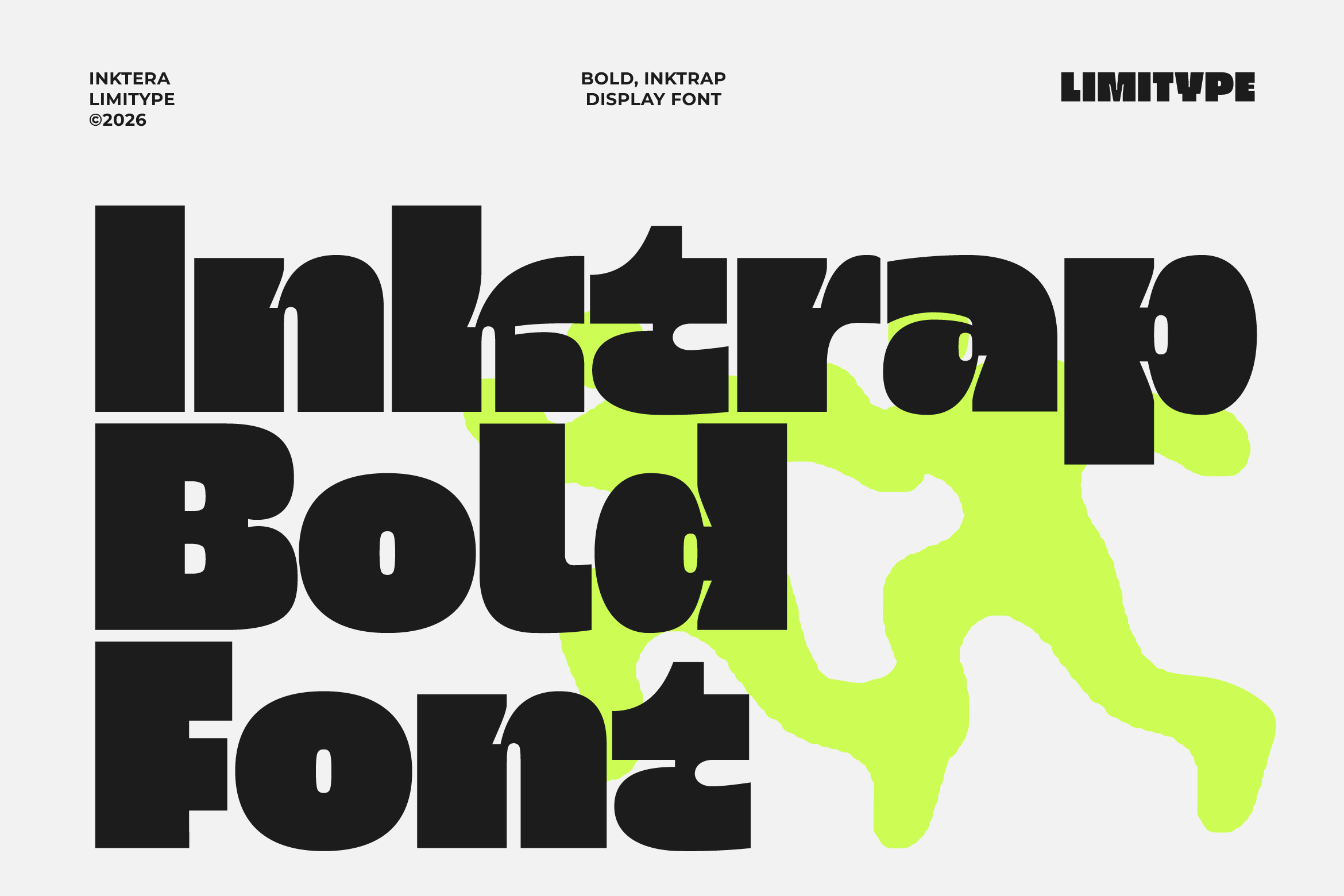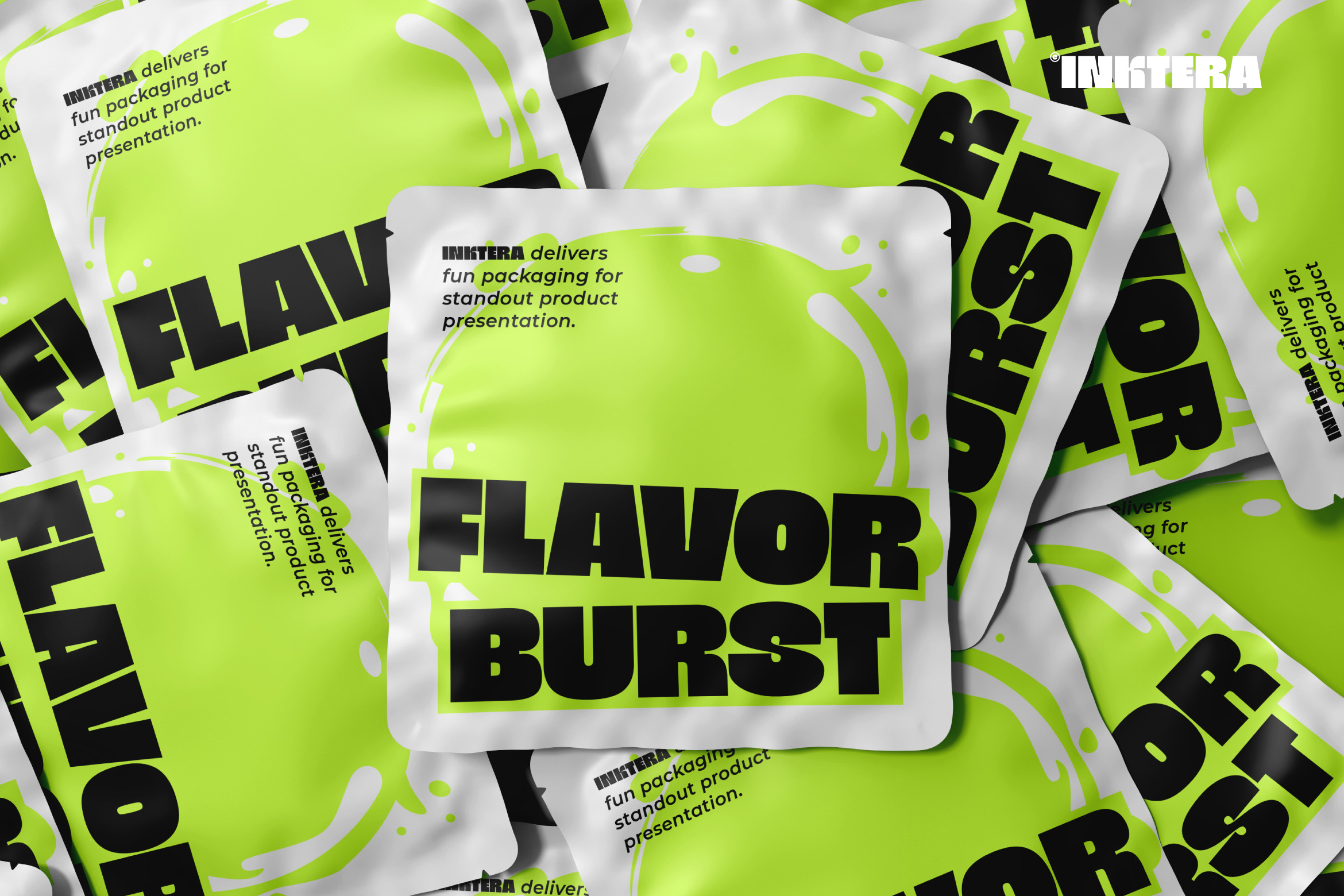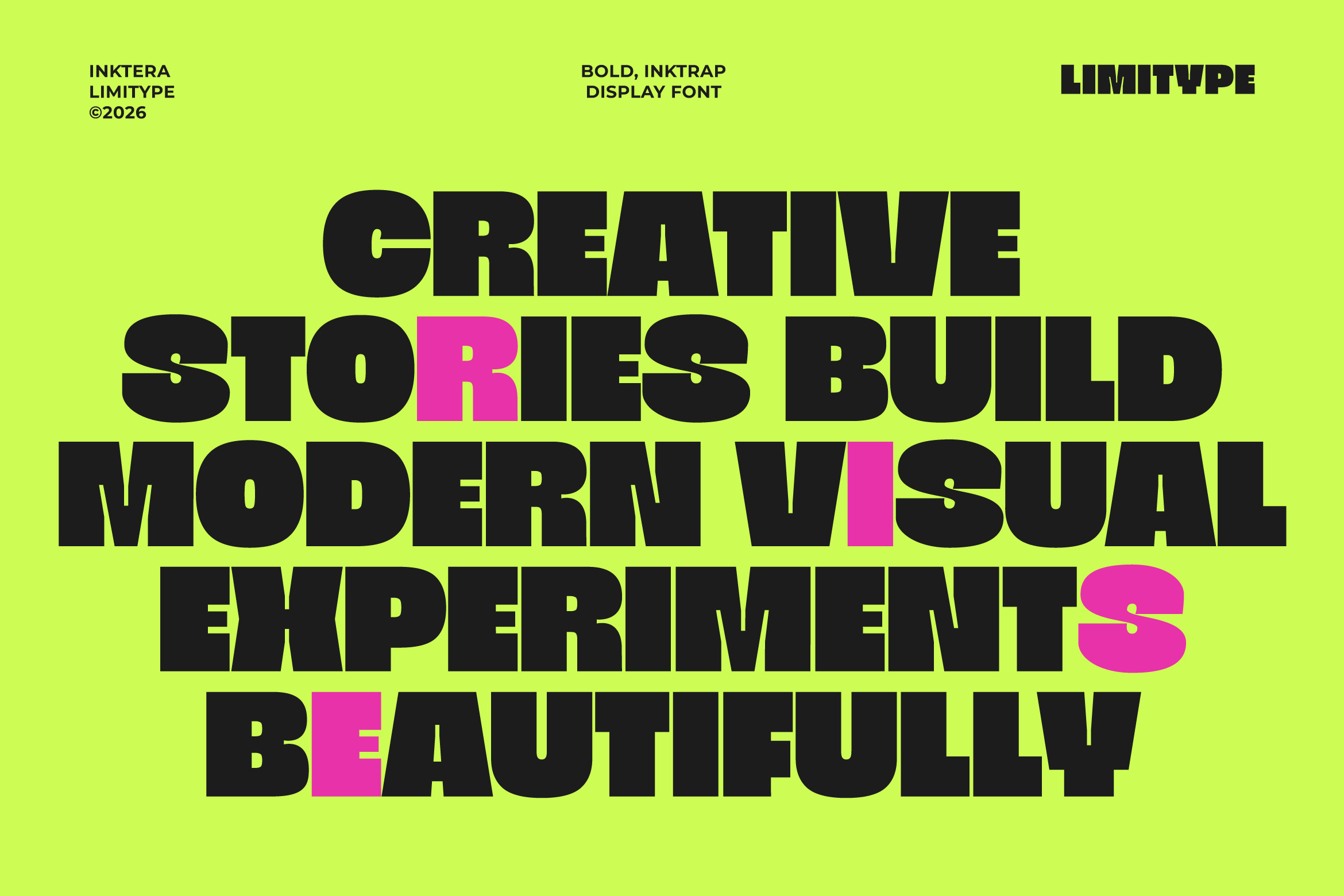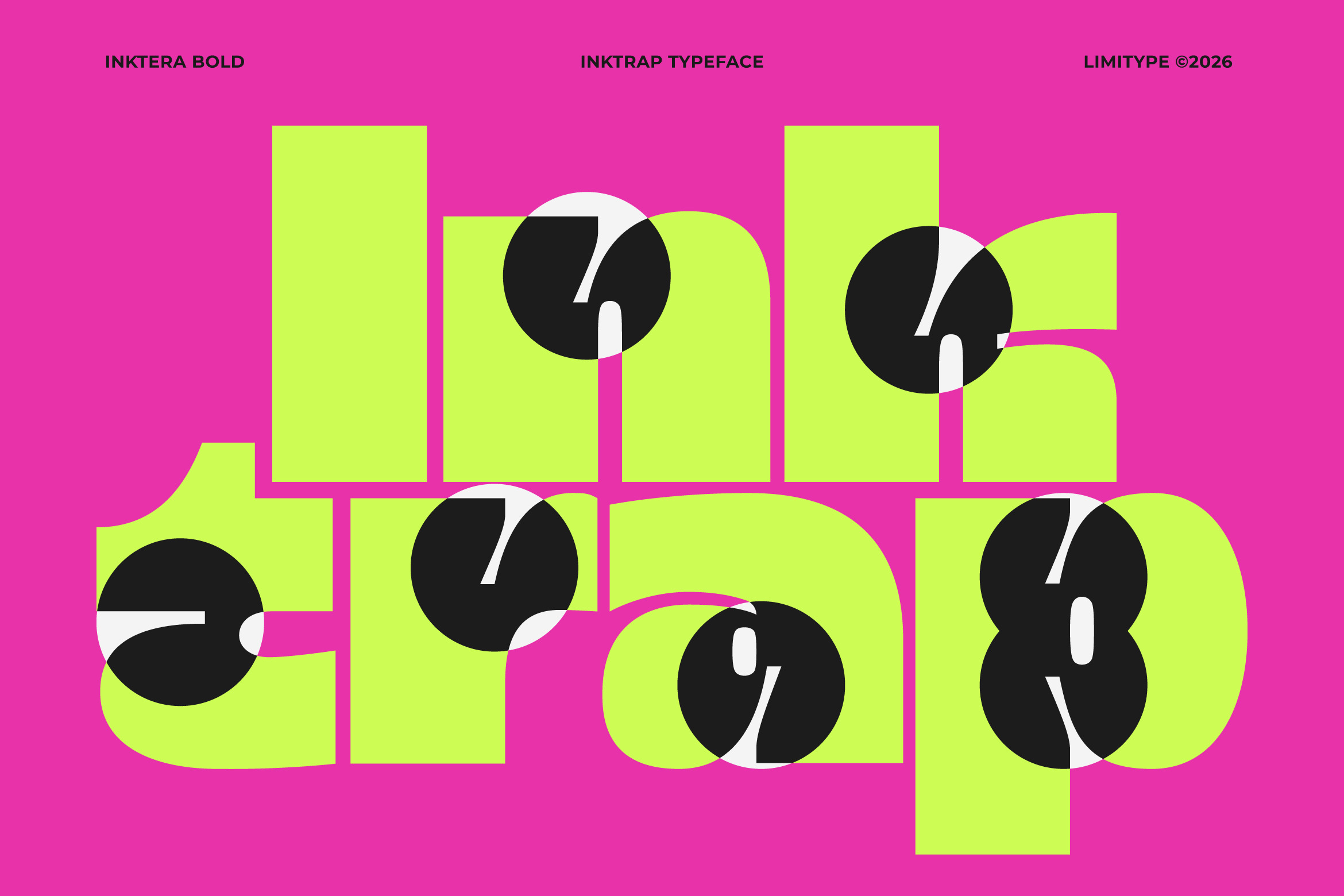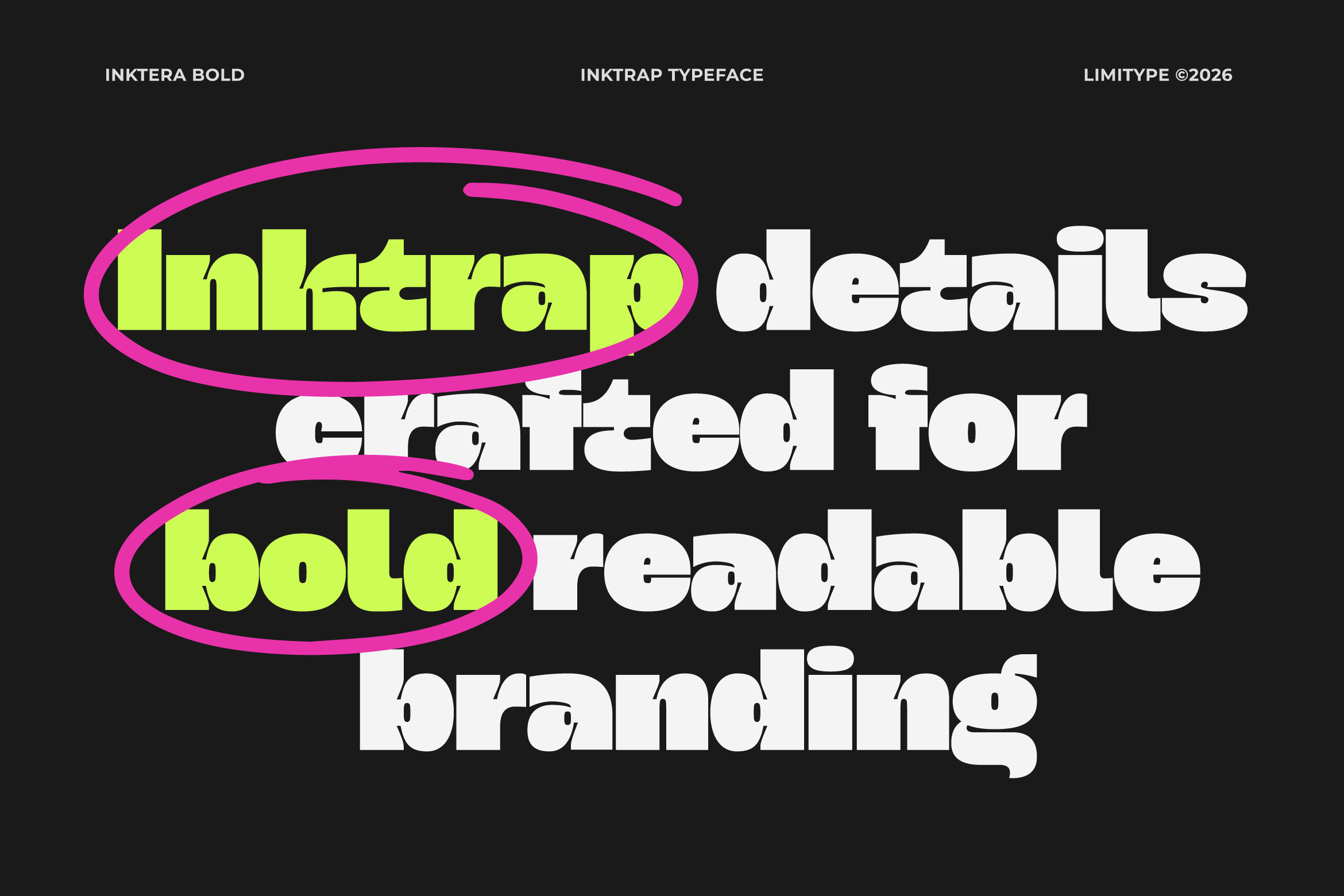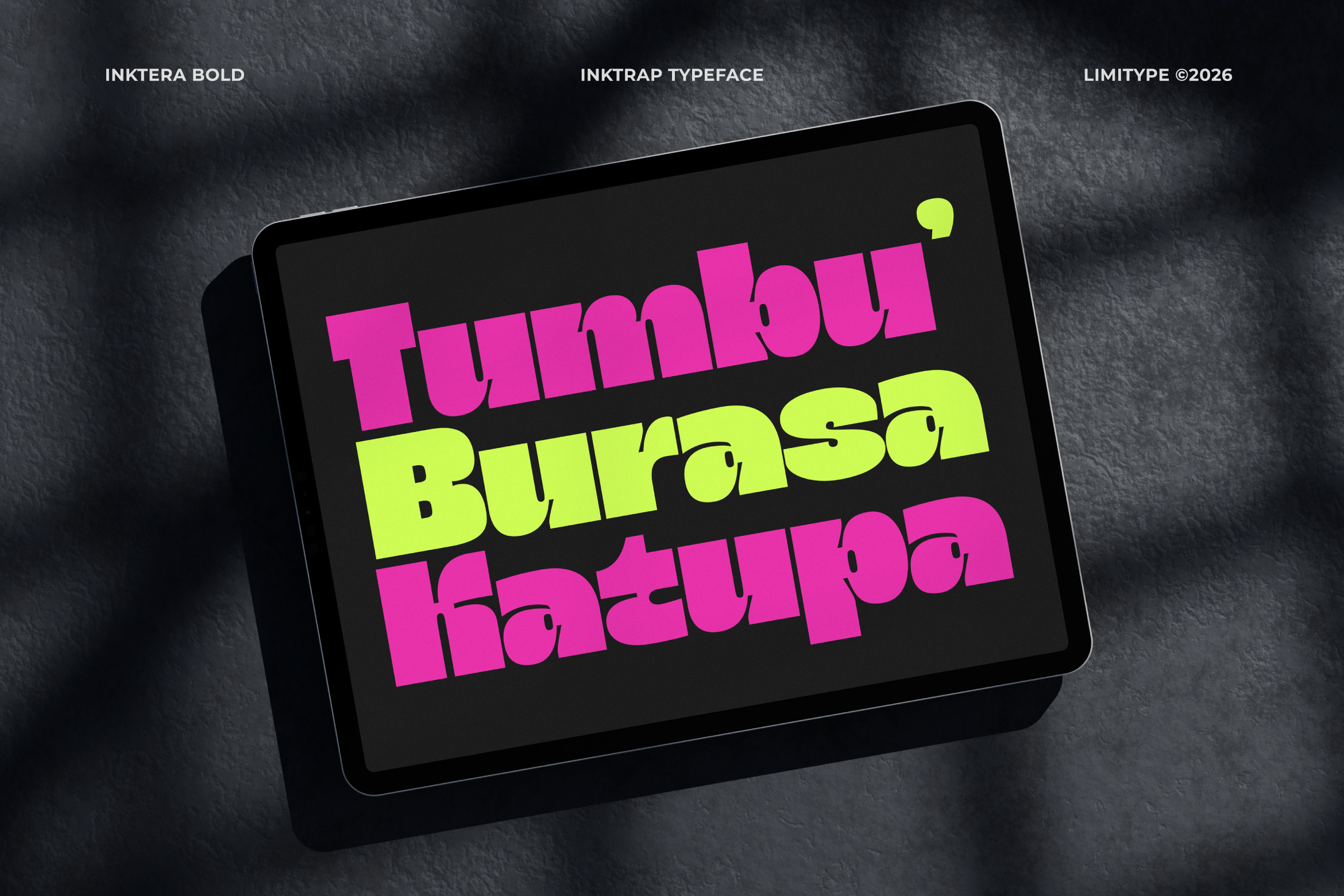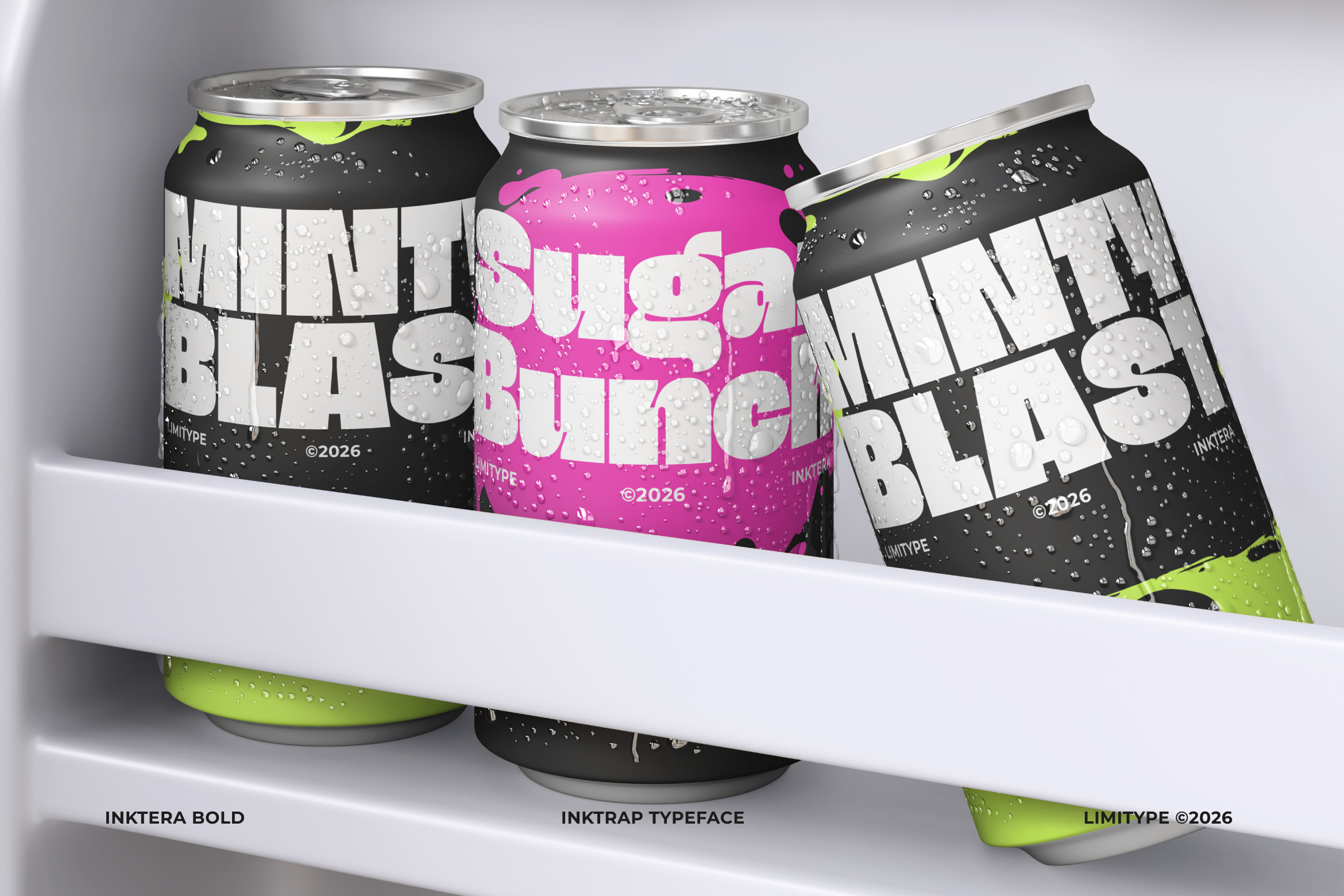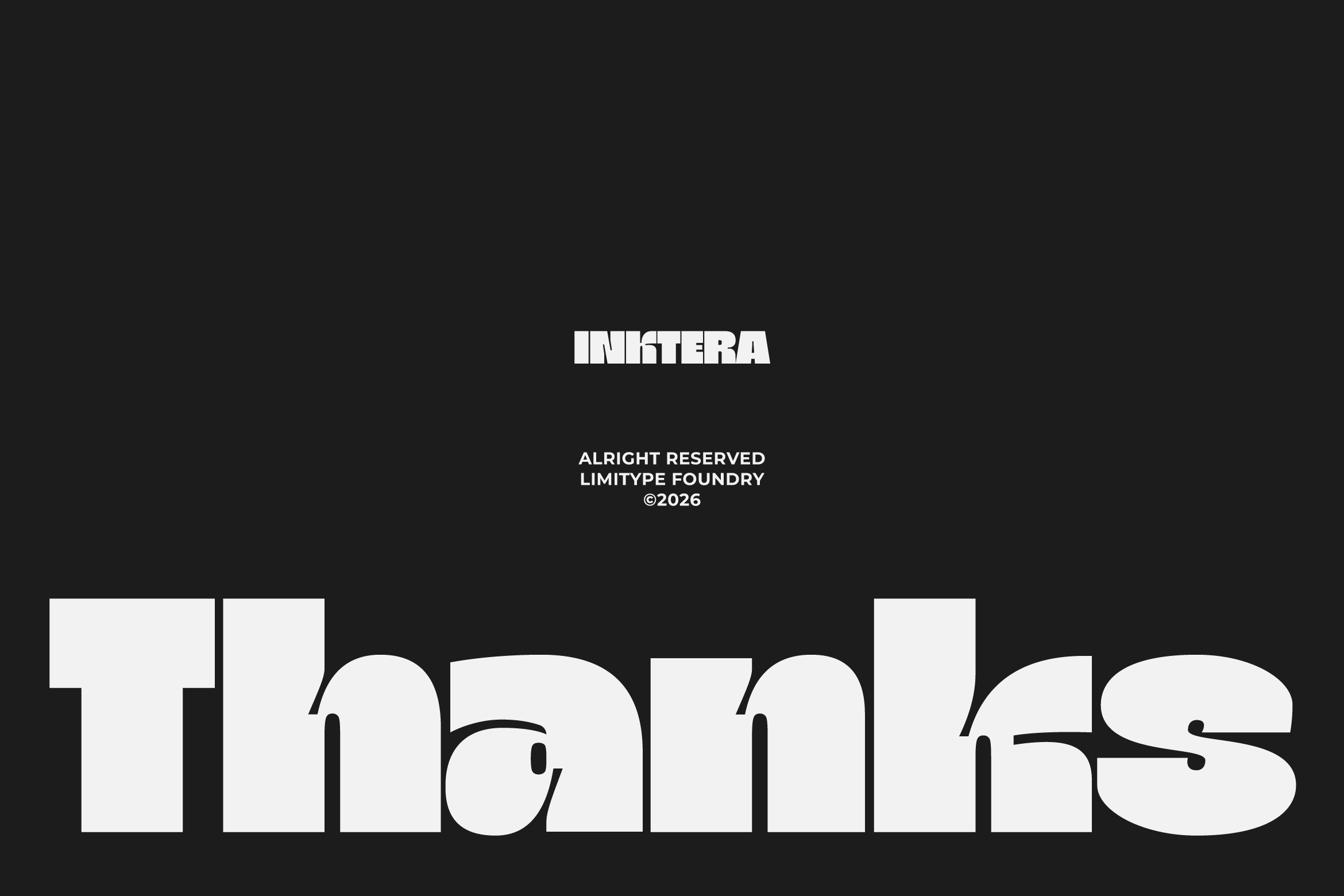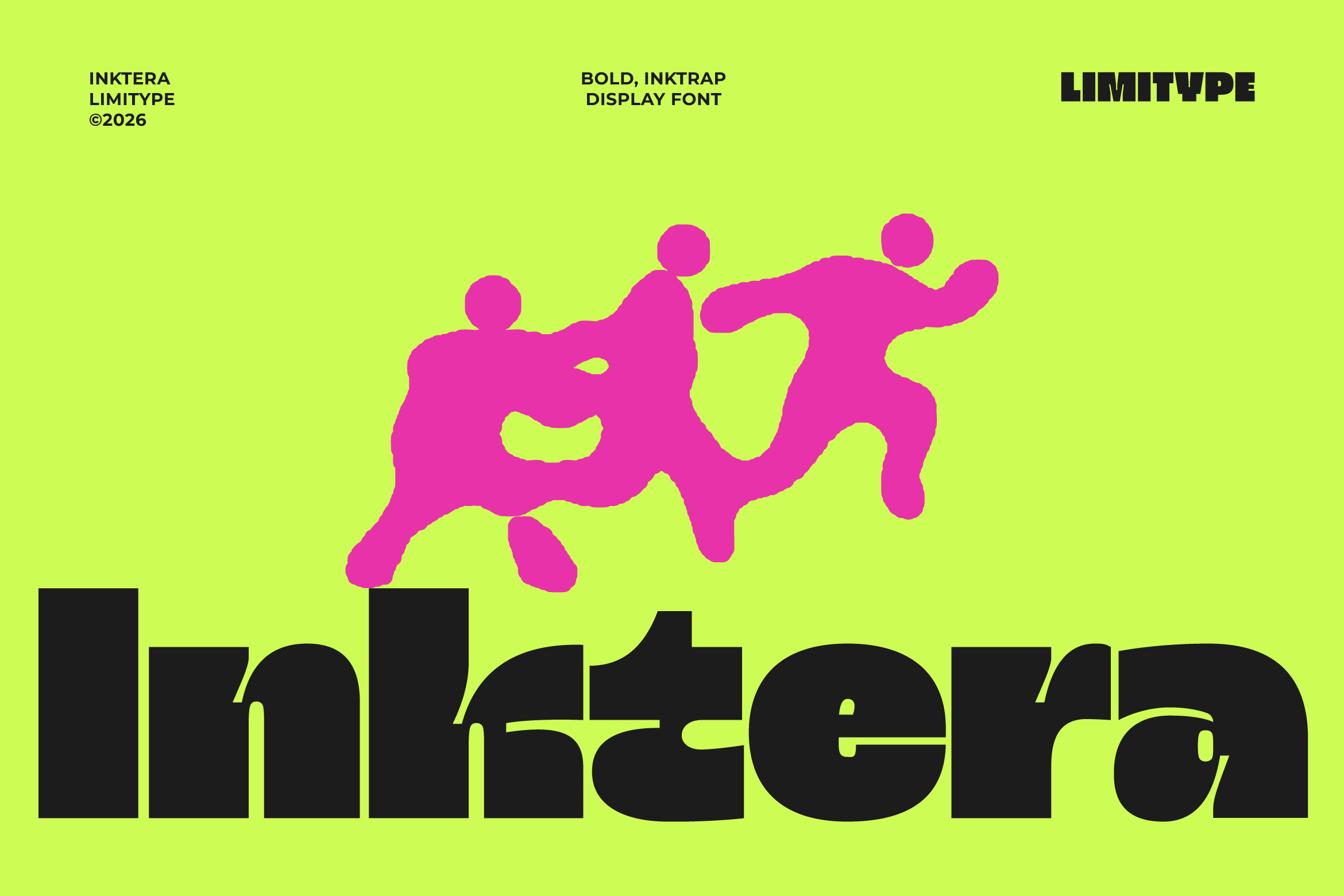
Inktera - Bold Inktrap Font
Inktera is a bold display font featuring distinctive Inkrap inspired details and a unique character structure designed to stand out across various digital and print design needs. Inktera is suitable for branding, headlines, posters, packaging, editorial layouts, logotypes, and modern visual identities. With a strong contemporary appearance and powerful letterforms, Inktera delivers a professional, modern, and striking impression. Designed for flexible display needs, it is capable of creating bold visuals while maintaining a stylish look across various creative projects.